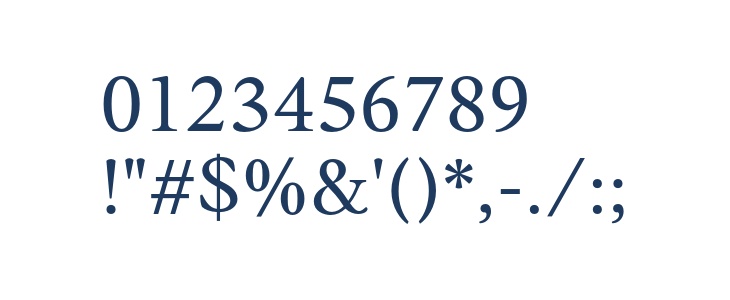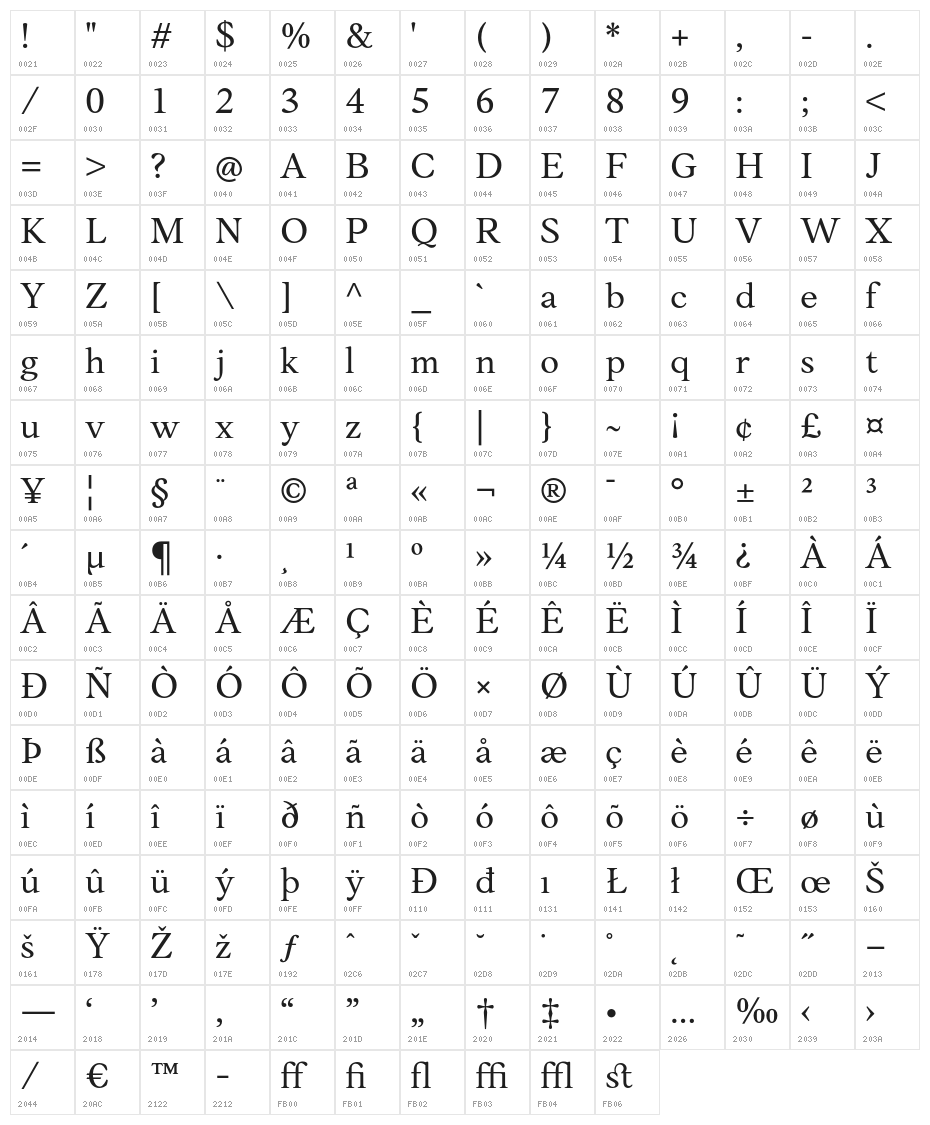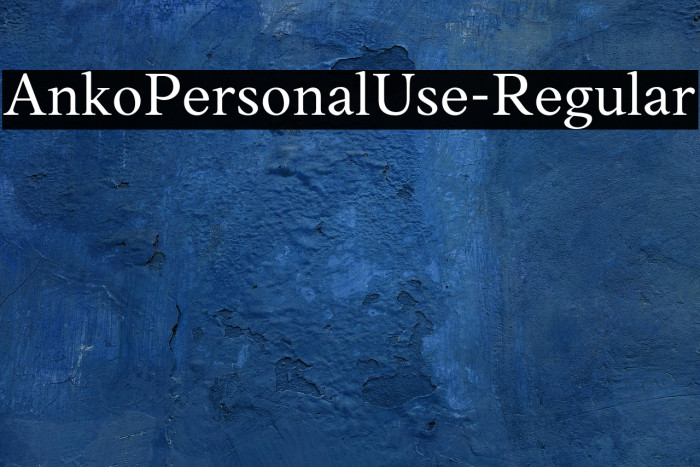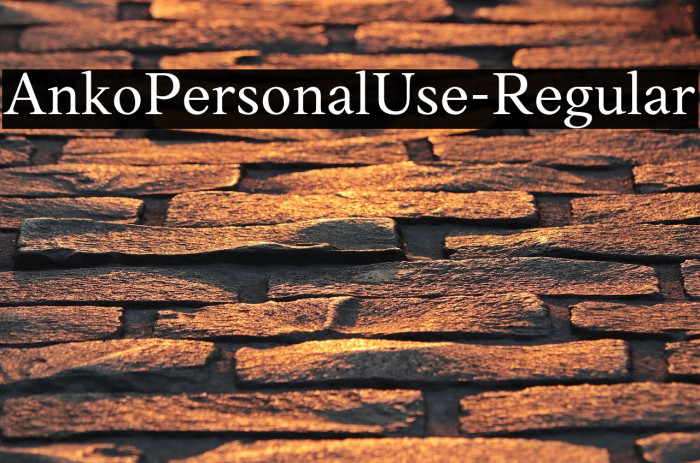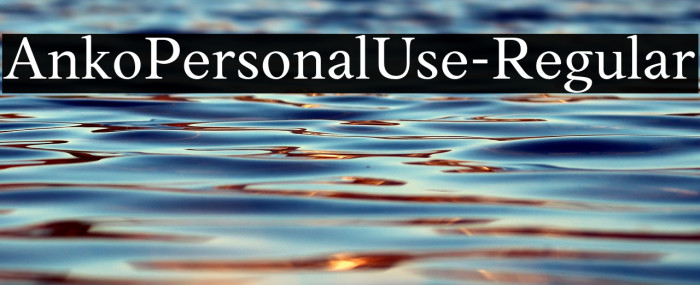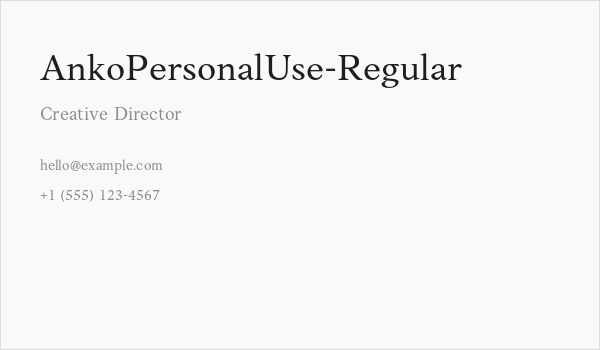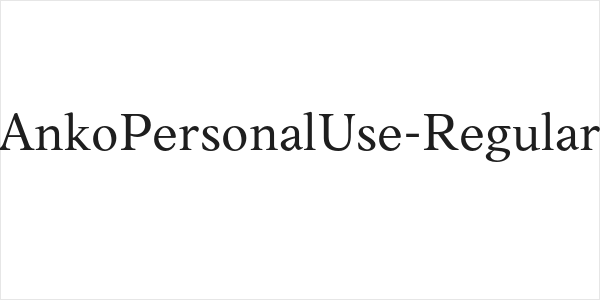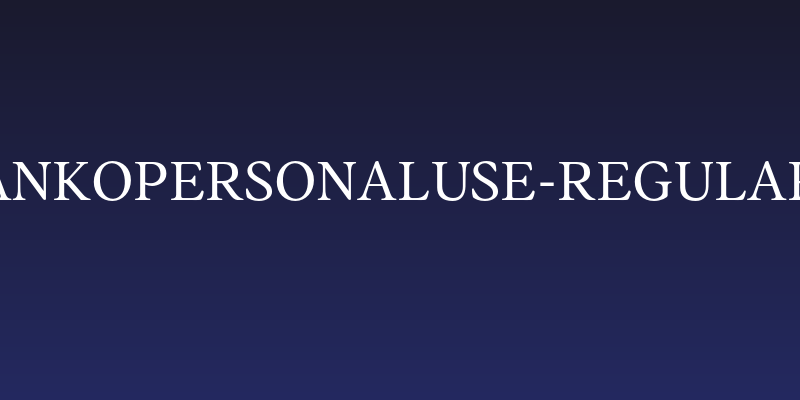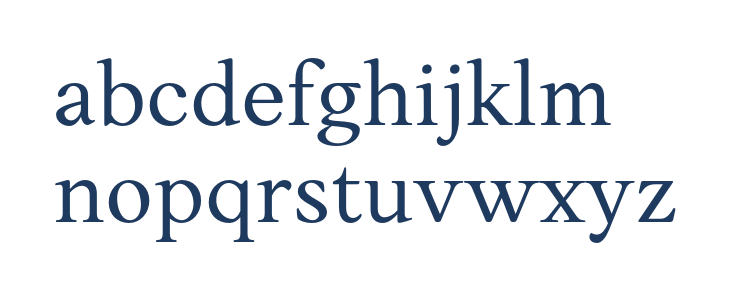
AnkoPersonalUse-Regular Font
AnkoPersonalUse-Regular Description
This font exhibits a classic serif style with elegant and refined strokes. The uppercase letters are bold and commanding, while the lowercase letters maintain a consistent and harmonious flow. The numerals are clear and well-proportioned, making them easily readable. Special characters are designed with the same attention to detail, ensuring a cohesive look across all glyphs. The overall appearance is sophisticated, making it suitable for formal and professional applications.
| Overall Style | Classic |
| Use Case | Headlines, Body text, Logos |
| Proposed Projects | Ideal for book covers, formal invitations, branding for luxury products, and editorial design. |